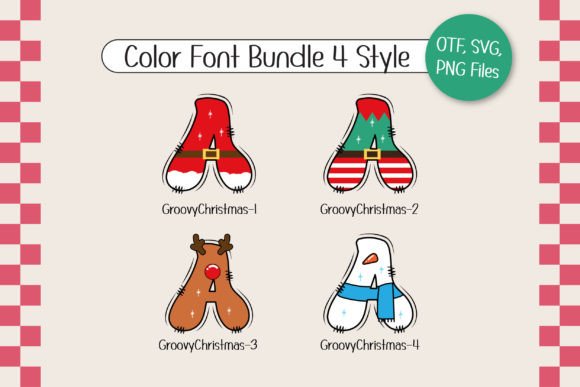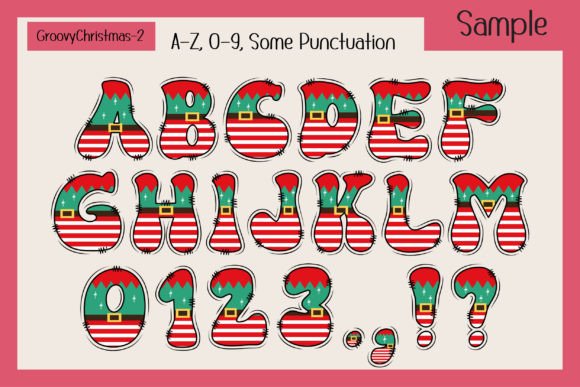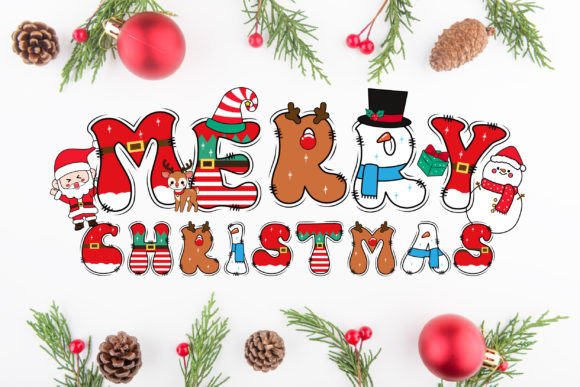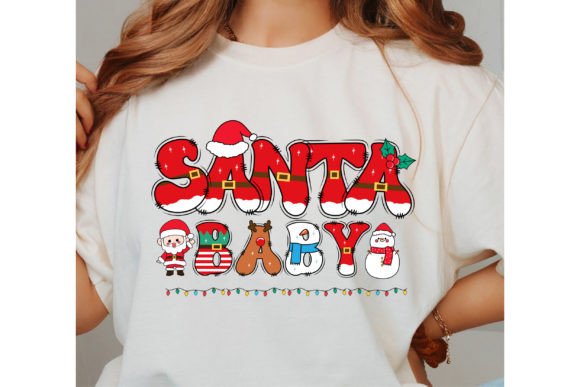
Groovy Christmas Font
Introducing “Groovy Christmas” a delightful font that combines the nostalgic charm of the groovy style with the festive spirit of Christmas. Each letter is adorned with playful details that highlight the magic of the season, featuring elements like Santa Claus, elves, reindeer, and snowman costumes. This unique font also includes 20 bonus matching clip arts, making it perfect for adding a festive touch to your Christmas posters, T-shirts, branding, custom DIY craft projects, quotes, personalized names, and more. “Groovy Christmas” is the ideal choice to bring joy and whimsy to your holiday creations.